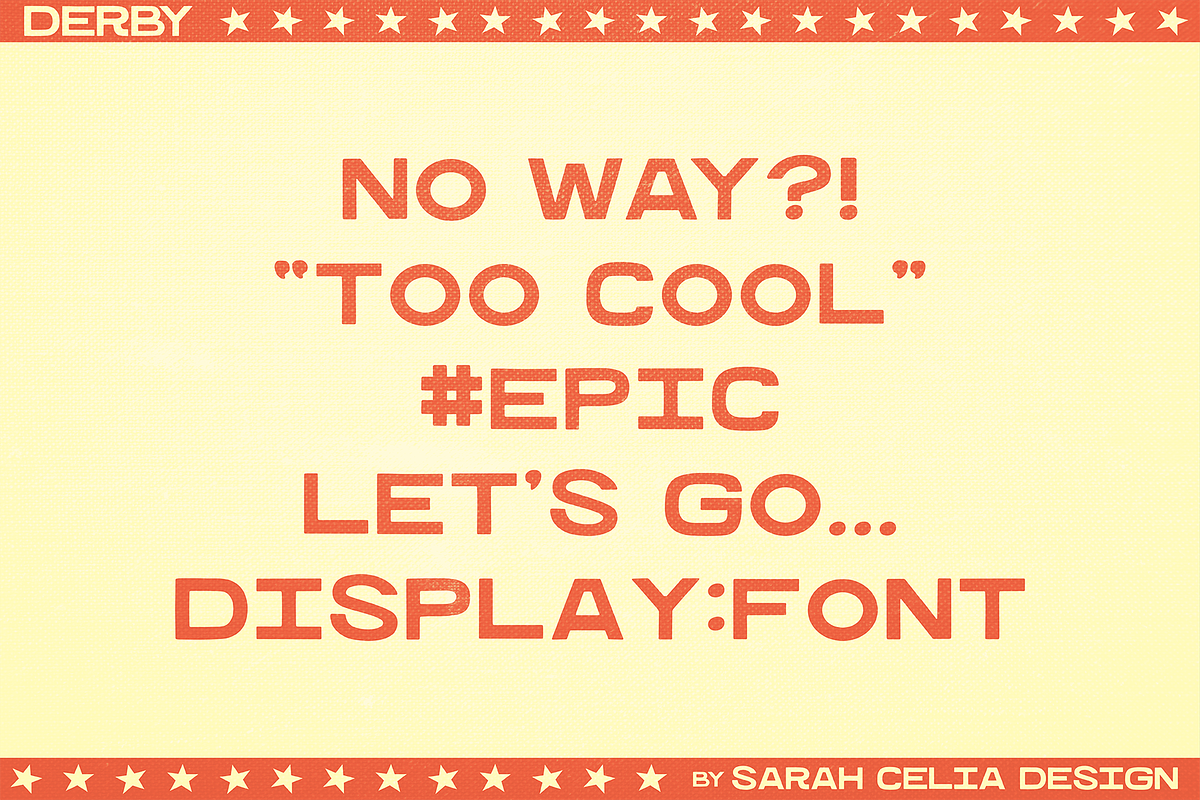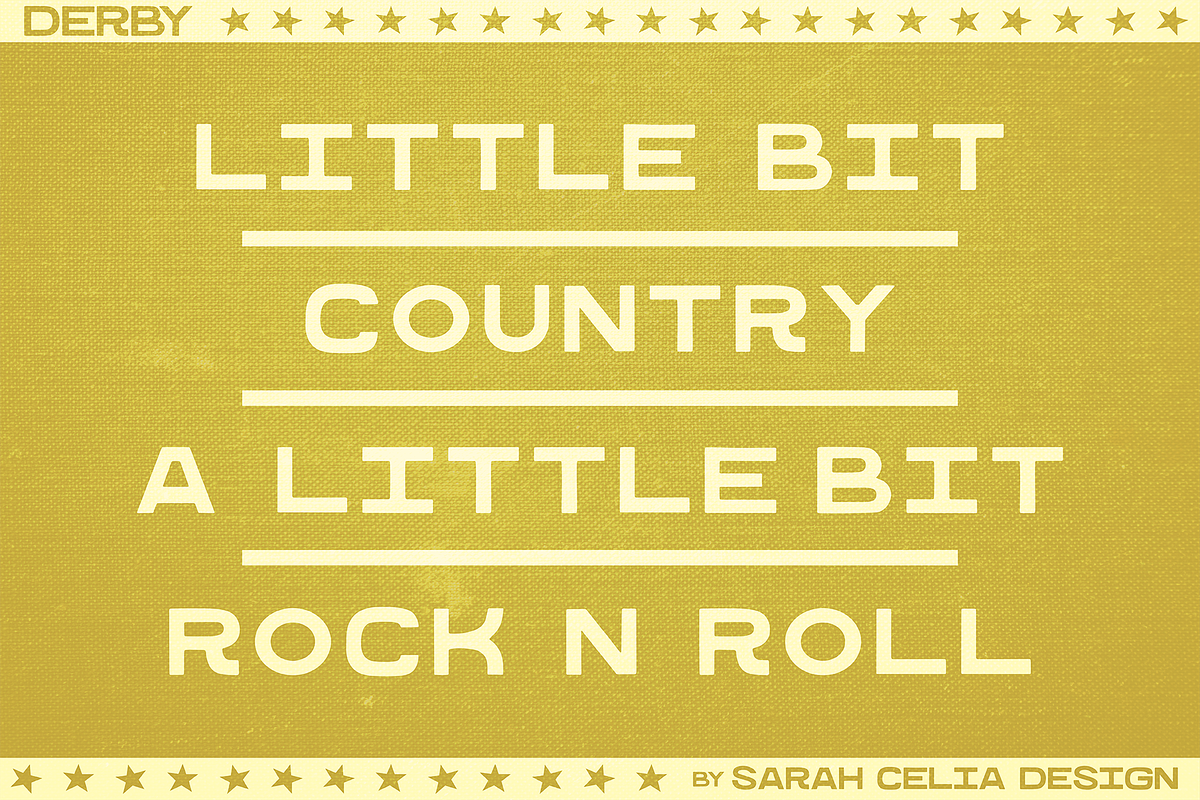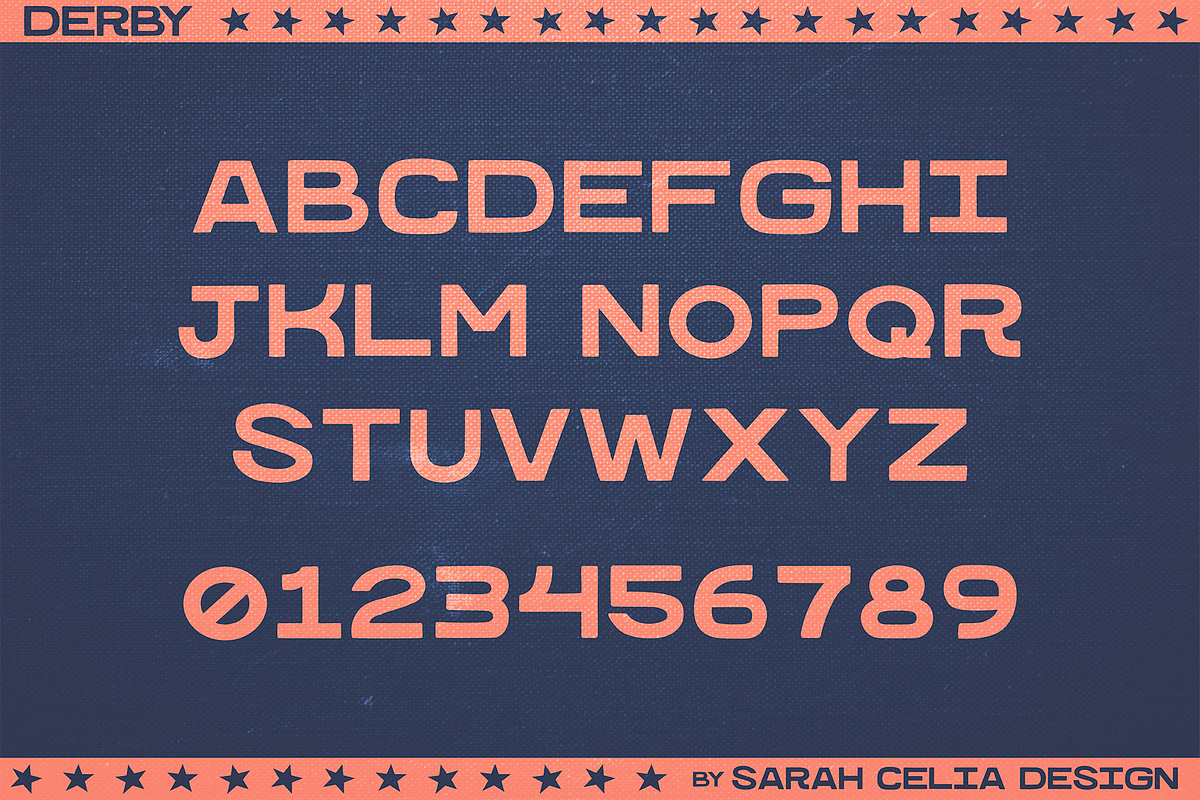
Derby - Sans Serif Display Font
Looking for a font that's a little bit funky, a touch of country, and a whole lot of rock and roll? Meet Derby, the hand-drawn sans serif display font that's a little bit country and a little but rock n' roll. With its subtle contrast and unique character, Derby is the perfect choice for logotypes, headlines, and any project that needs a bold, creative touch.
Elevate your design projects with Derby, the hand-drawn sans serif display font that's as unique as you are. Perfect for logos, headlines, and more, Derby is your ticket to designs that rock. Don't miss out—add Derby to your font collection today!